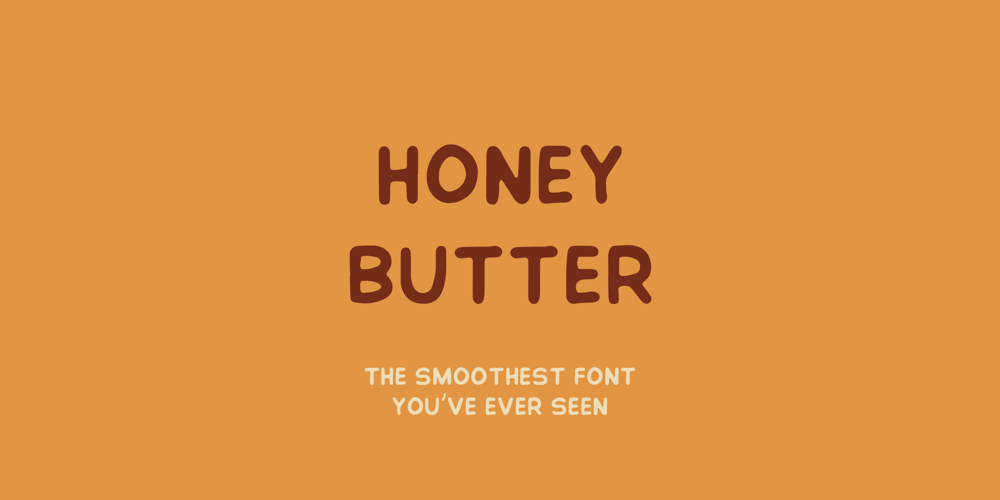
Honeybutter
Honeybutter font
Honeybutter Font Family was designed by Zaffar Ansari and published by Zansari. Honeybutter contains 1 styles and family package options. Honeybutter is a modern-vintage inspired hand lettered font. This refreshing take on a the vintage sans serif style is perfect just on its own or for pairing with other similar vintage inspired fonts.Highly recommended for digital lettering, logos, marketing material, print, branding material, quotes, overlaying on photography, and much more.This font was carefully designed by hand in Auckland, New Zealand